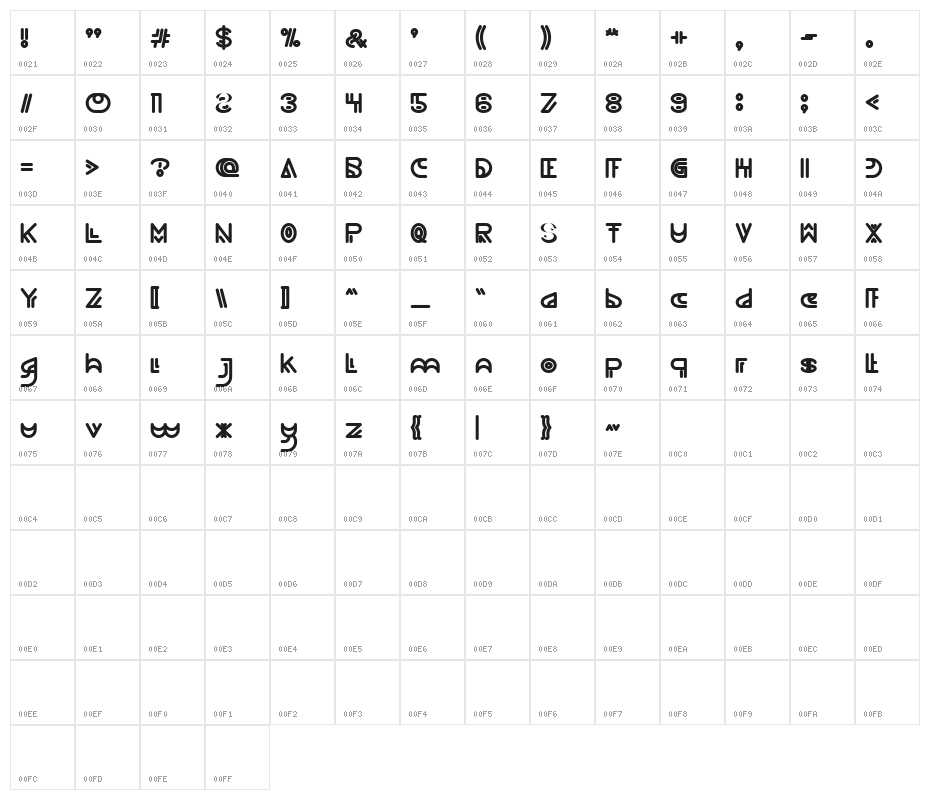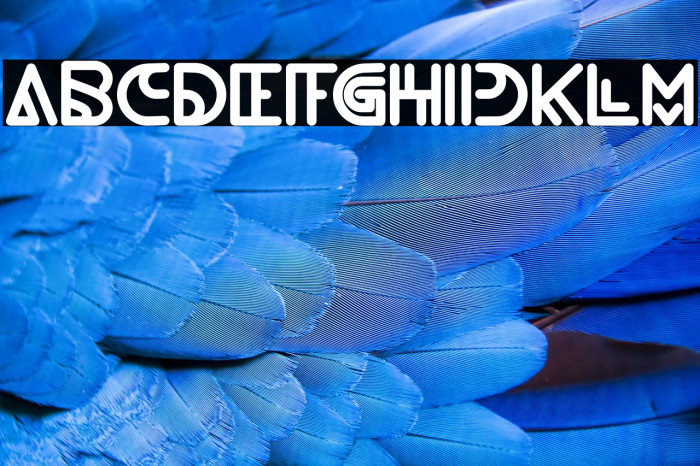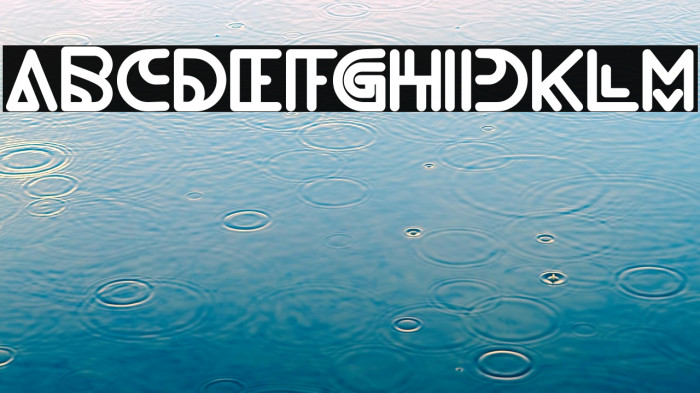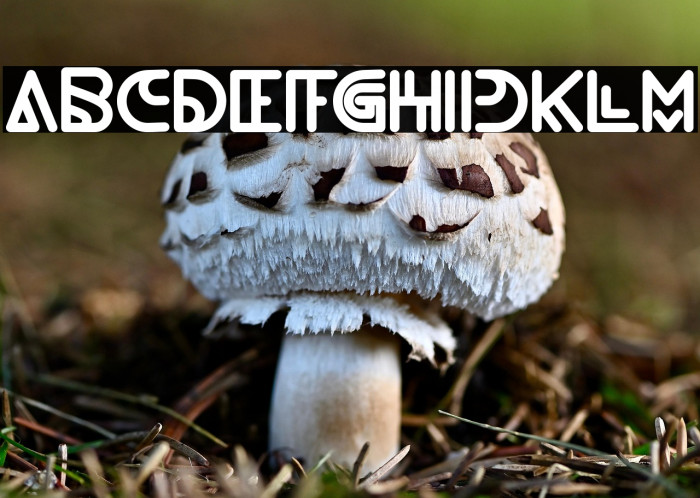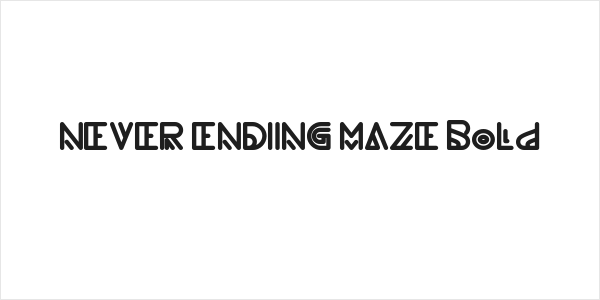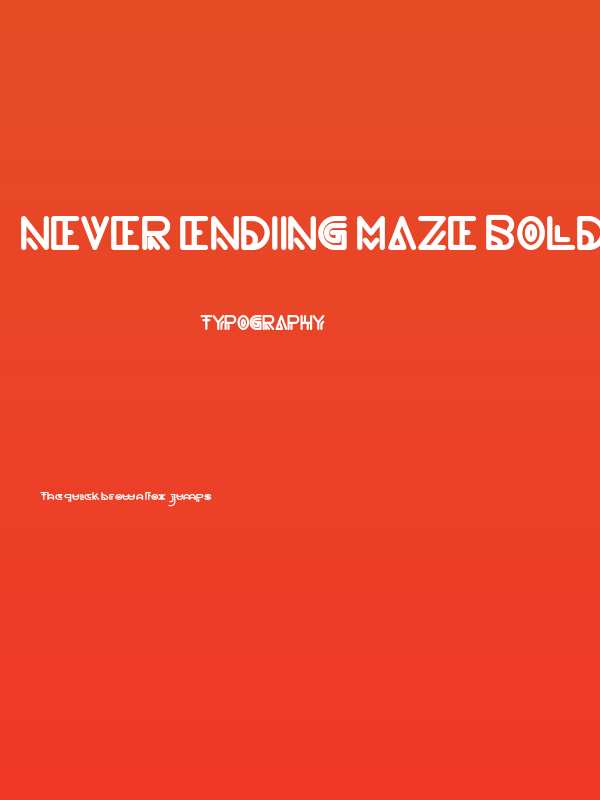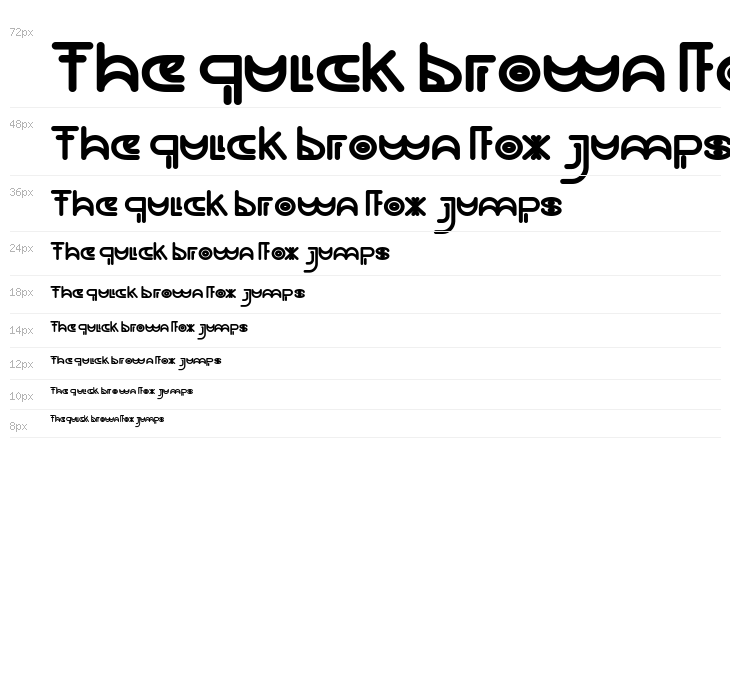
NEVER ENDING MAZE Bold Font
NEVER ENDING MAZE Bold Description
This font features a bold and geometric design with a futuristic flair. The characters are constructed with thick, uniform strokes and rounded edges, creating a sense of continuity and flow. The uppercase and lowercase letters maintain a consistent style, with unique cutouts and curves that add an element of intrigue. The numerals and special characters follow the same design principles, ensuring a cohesive look across all text. This font's distinct style makes it ideal for projects that require a modern and eye-catching appearance.